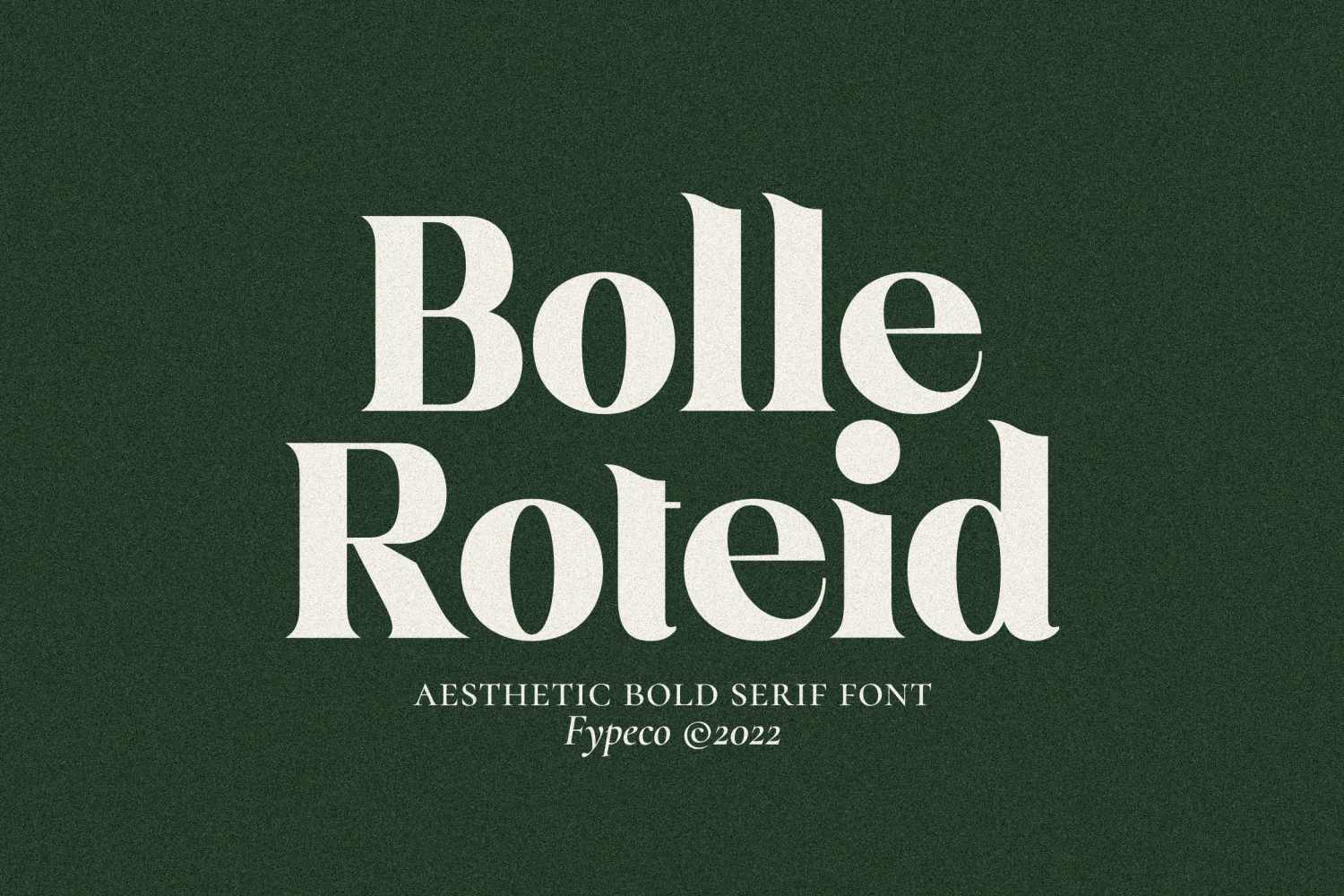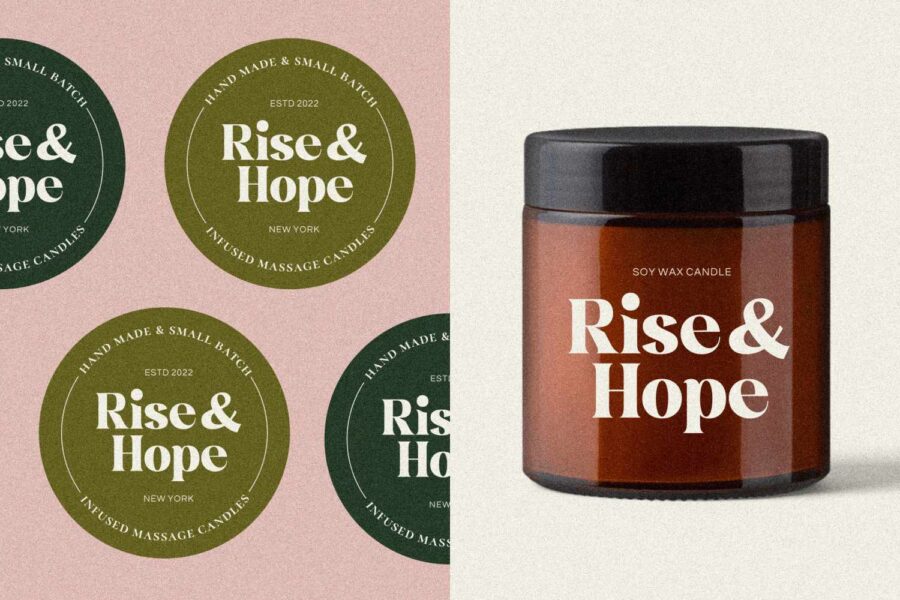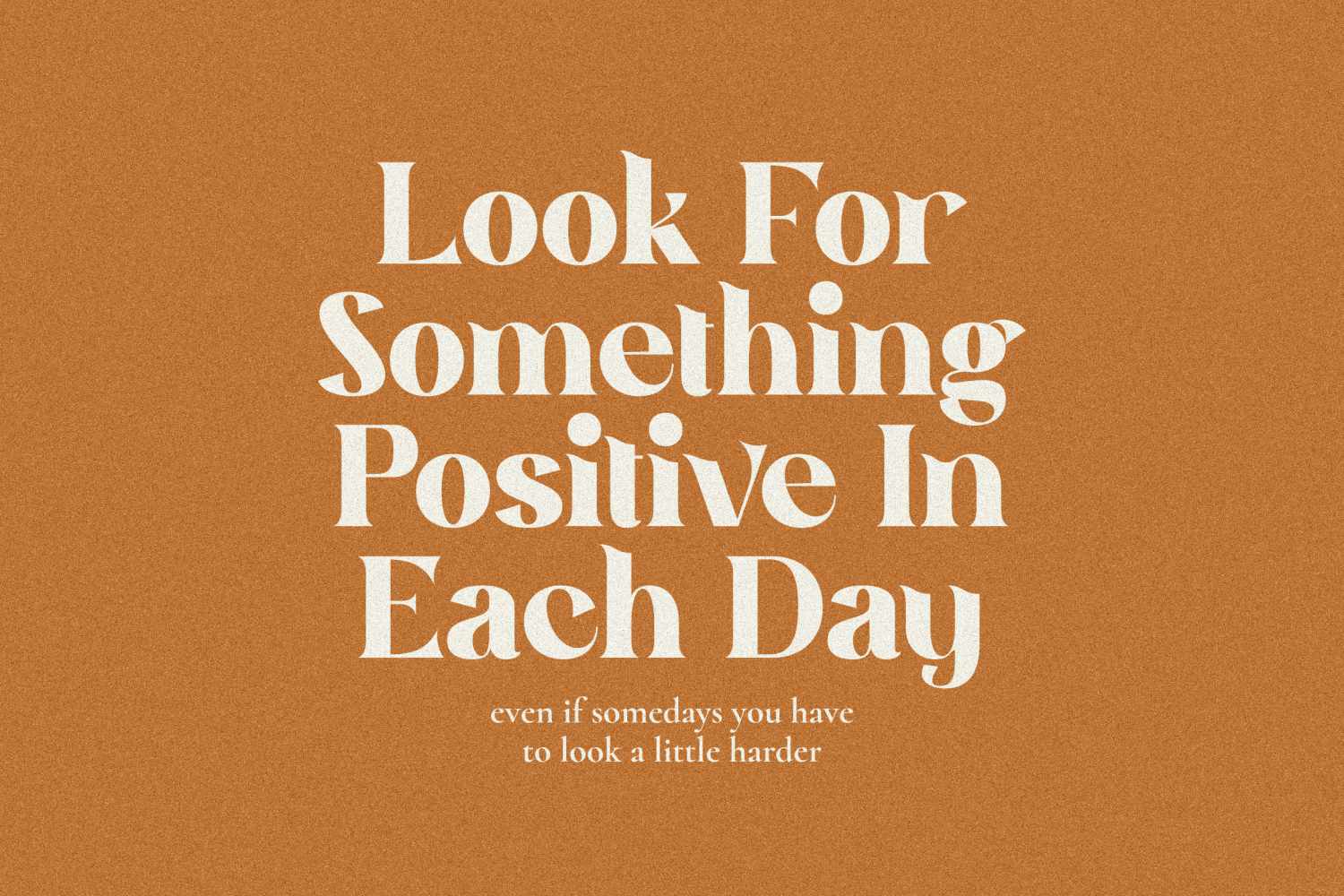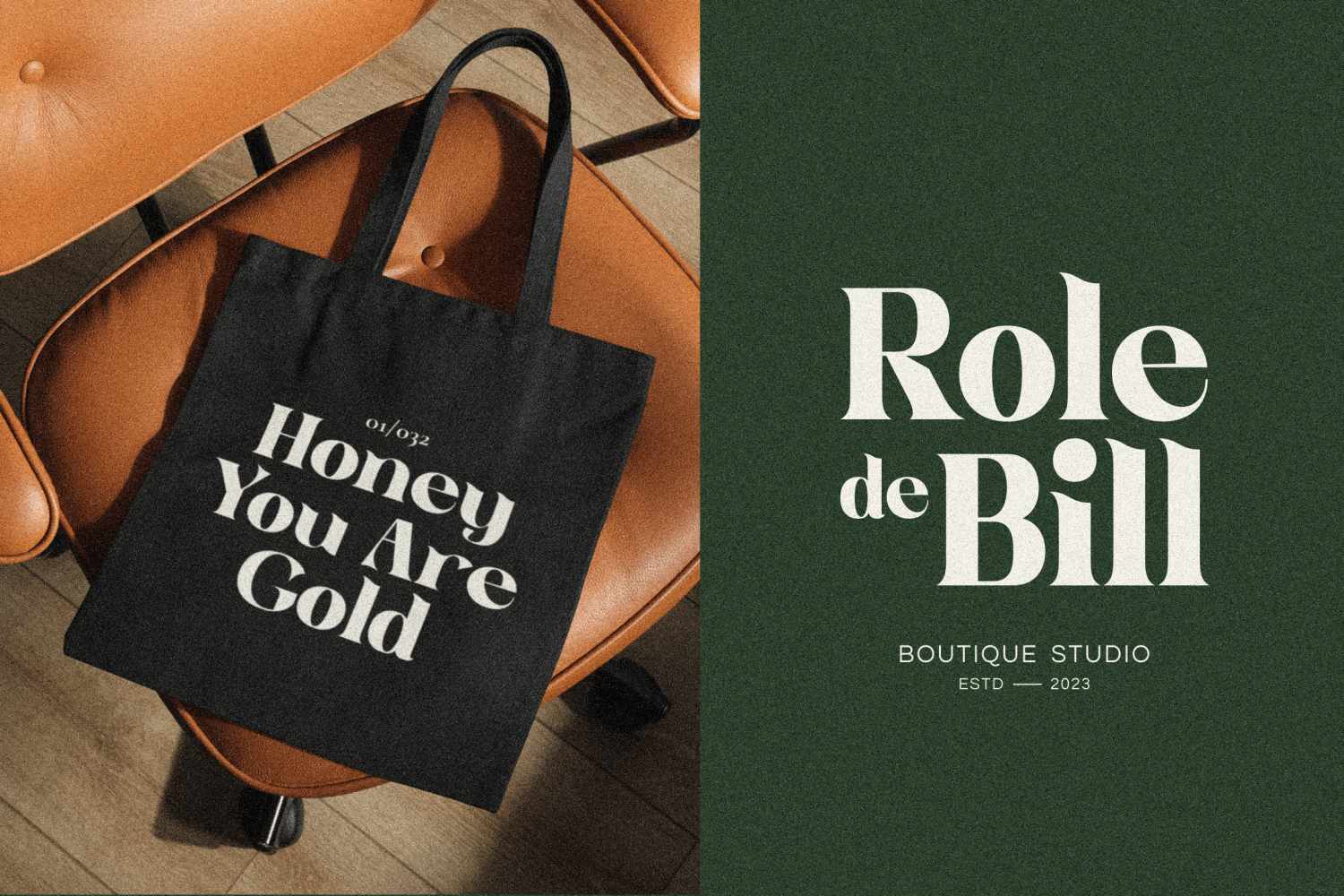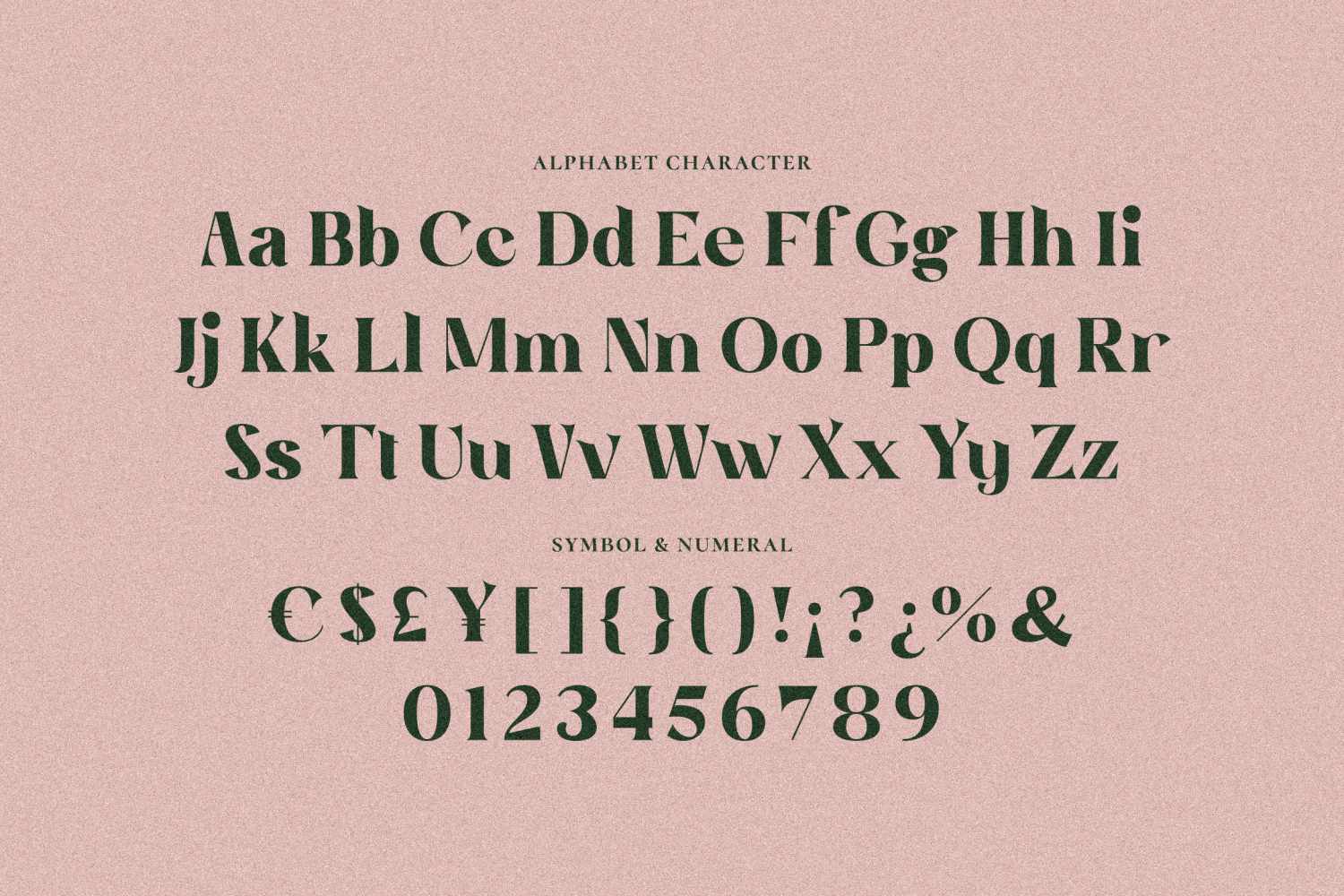
Bolle Roteid is a bold aesthetic serif font that blends vintage charm with modern sophistication. Its thick, high-contrast strokes and subtle curves create a luxurious look that is perfect for branding, packaging, editorial designs, and high-end product labels. The sharp details paired with soft, rounded edges bring a harmonious balance between strength and elegance, making every word you type look refined and stylish.
This font comes with uppercase & lowercase letters, numbers, punctuation, and multilingual support, offering flexibility for a wide range of projects. Ideal for logos, magazine titles, fashion campaigns, boutique branding, or statement quotes, Bolle Roteid ensures your design speaks with confidence and elegance. Whether for print or digital use, it delivers a distinctive personality that will captivate your audience.
Bolle Roteid